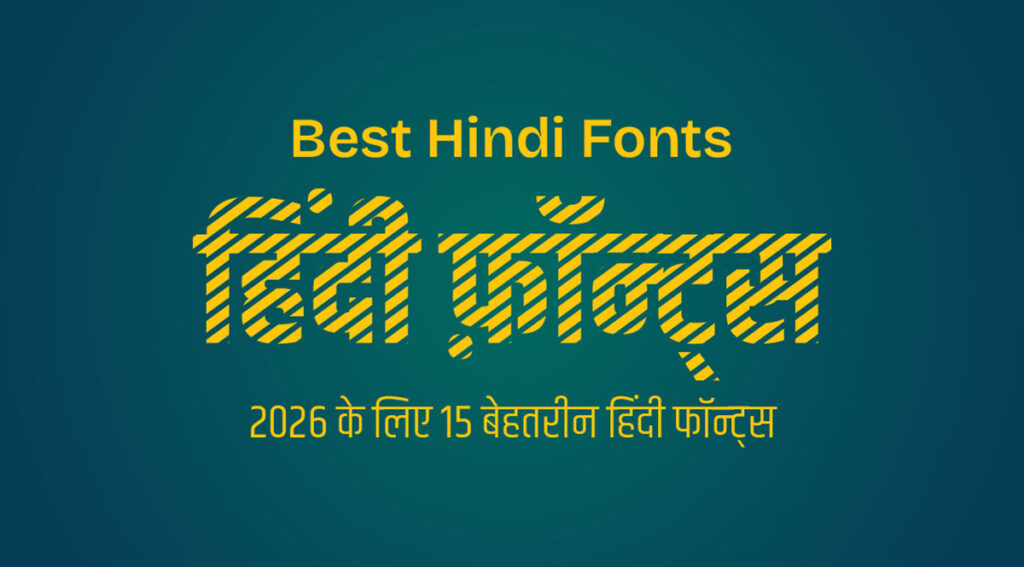
Best Hindi Fonts for 2026: 15 Stylish Devanagari Fonts for Designers
Typography plays a major role in how a design communicates with its audience. When working with Hindi or Devanagari scripts, choosing the right font can instantly elevate a design. Whether you’re designing wedding invitations, social media graphics, posters, or brand visuals, the right Hindi font can transform ordinary text into something visually engaging.
Many designers focus heavily on layout and color but underestimate the importance of typography. In reality, a strong Hindi font can do half the design work for you. With the growing demand for regional language content in India, Hindi typography is becoming more relevant than ever for digital and print design.
In this guide, we’ll explore some of the best Hindi fonts for 2026 that can help designers create stylish, bold, and culturally connected visuals.
Why Hindi Fonts Never Go Out of Style
Design trends change constantly, but Hindi typography has maintained its relevance for decades. One major reason is its emotional and cultural connection with audiences. Hindi fonts often feel more expressive and human compared to generic fonts.
For Indian audiences, visual familiarity matters. A festive poster or wedding invitation designed using Hindi typography instantly feels more authentic. The same design using a generic font may communicate the message, but it lacks cultural warmth.
This is why Hindi fonts continue to dominate in:
• Wedding invitations
• Festival posters
• Regional advertisements
• Social media graphics
• Cultural branding campaigns
For designers targeting Indian audiences, learning how to use Devanagari typography effectively is a valuable skill.
15 Best Hindi Fonts for Designers in 2026
Below are some of the most useful and stylish Hindi fonts designers can explore in 2026.
1. Noto Sans Devanagari
Noto Sans Devanagari is one of the most popular Hindi fonts available on Google Fonts. It offers clean letterforms, excellent readability, and works well for both digital and print design projects.
Best for: Blog graphics, website headings, thumbnails, branding
2. Anek Devanagari
Anek Devanagari is a modern and flexible font that feels fresh and contemporary. Its balanced design makes it suitable for creative layouts and modern visual communication.
Best for: Posters, social media creatives, modern branding
3. Hind
Hind is a simple yet highly versatile Hindi font that looks neat and balanced. It blends readability with elegance, making it a dependable choice for various design styles.
Best for: Website banners, business graphics, headings
4. Khand
Khand is a bold and wide Hindi font that instantly grabs attention. Its strong geometric structure makes it ideal for large text and impactful headlines.
Best for: Posters, announcements, bold thumbnails
5. Teko Bold
Teko Bold is a tall and condensed font that works well in tight spaces. It allows designers to create strong headlines without taking up too much space.
Best for: Promo banners, short titles, YouTube thumbnails
6. Halant Bold
Halant Bold is a modern Devanagari typeface with a clean and structured design. It feels professional and contemporary, making it ideal for polished visual communication.
Best for: Corporate branding, UI design, professional headings
7. Kalam Bold
Kalam is a friendly handwritten-style Hindi font available on Google Fonts. It mimics natural handwriting while maintaining good readability.
Best for: Educational content, casual social media graphics, small business branding
8. Mukta Extra Bold
Mukta Extra Bold is a modern sans-serif Hindi font that appears bold and clear on screens. Its simplicity makes it perfect for digital-first design projects.
Best for: Websites, web banners, digital content, social posts
9. Tiro Devanagari
Tiro Devanagari has a refined and elegant style inspired by classic serif typography. It adds a premium feel to editorial and publishing designs.
Best for: Editorial titles, blogs, premium creatives
10. Brahmos Devanagari
Brahmos Devanagari is a bold display font designed for strong visual impact. It works exceptionally well when you want typography to become the main visual element.
Best for: News banners, sports posters, impactful headlines
11. Koyla Devanagari
Koyla Devanagari is an expressive and dramatic font with a strong personality. It helps designs stand out and works well for creative and experimental layouts.
Best for: Event posters, album covers, creative titles
12. Munshi Devanagari
Munshi Devanagari strikes a balance between traditional and modern design. This versatility makes it ideal for brands that want to feel culturally rooted without appearing outdated.
Best for: Editorial layouts, heritage branding, cultural campaigns
13. Objektiv Devanagari
Objektiv Devanagari features a clean geometric structure that fits perfectly with modern design aesthetics. It works well for minimalist branding and contemporary visual identities.
How do I choose the right Hindi font for my design?
Choosing the right Hindi font depends on your project’s purpose and audience. For professional or corporate designs, clean and modern fonts work best. For festive, cultural, or wedding designs, expressive and decorative fonts are more suitable. Designers should also test fonts with real Hindi text to ensure good readability and visual balance.